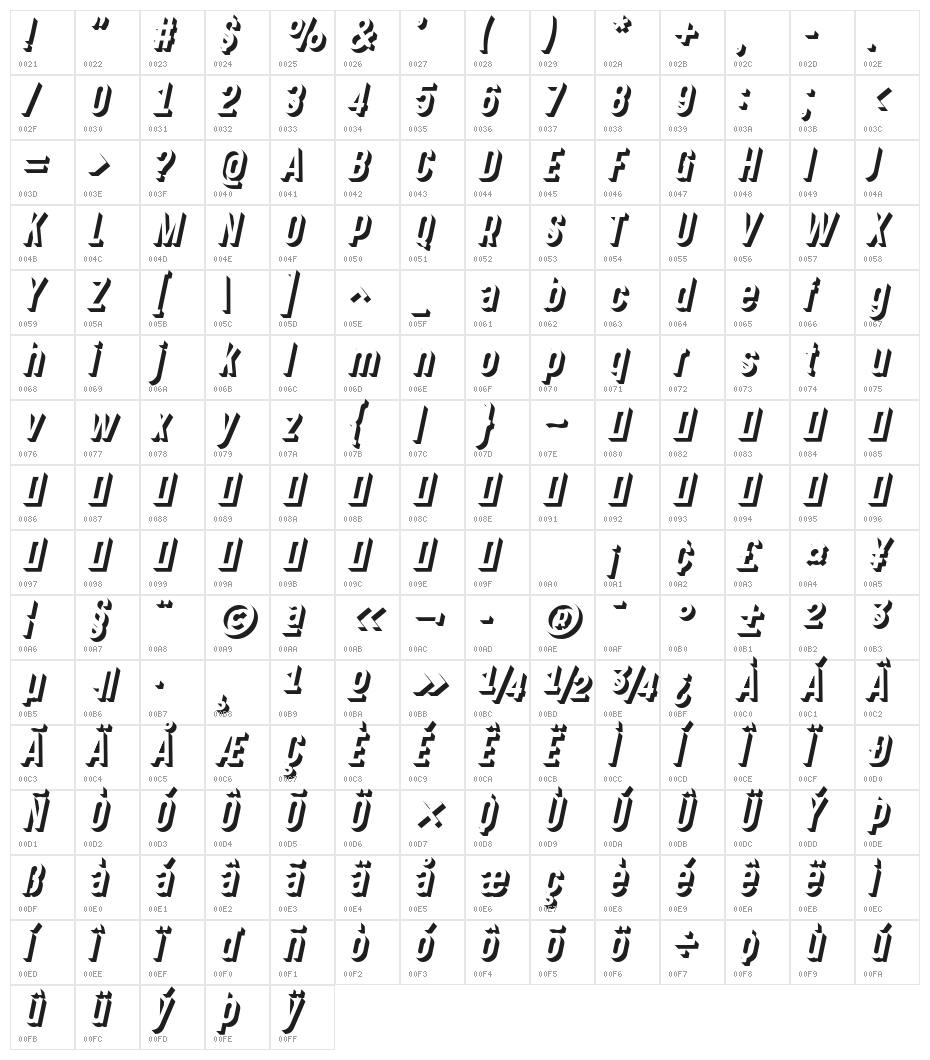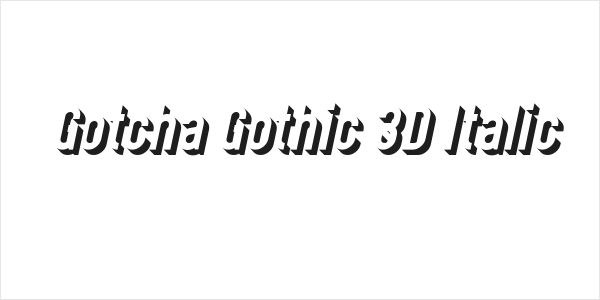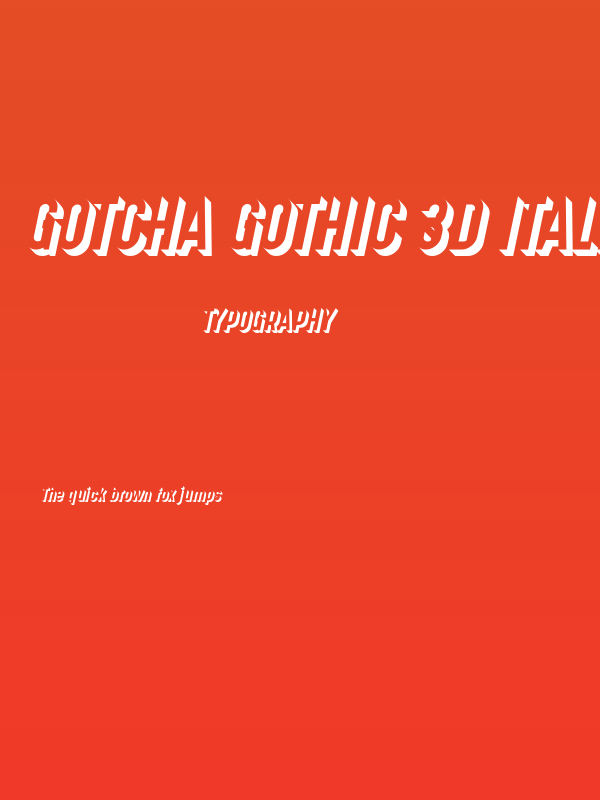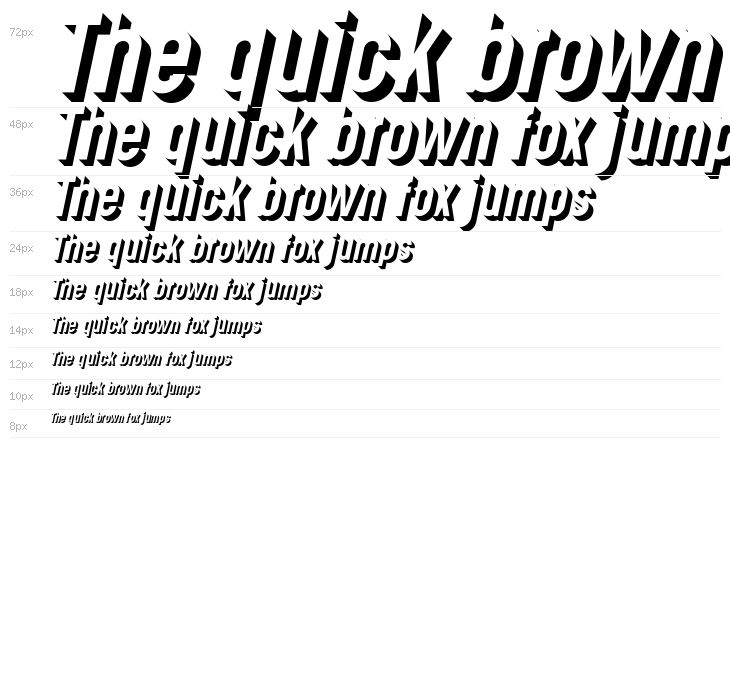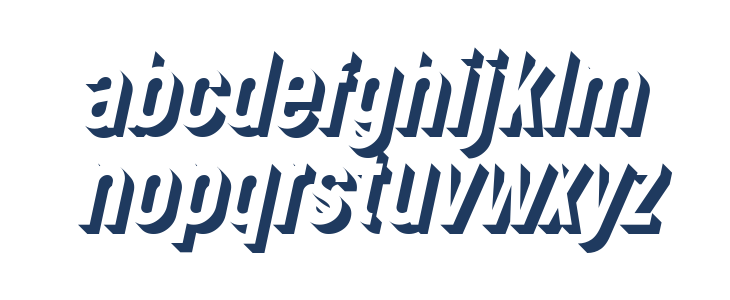
Gotcha Gothic 3D Italic Font
Gotcha Gothic 3D Italic Description
This font features a bold, three-dimensional design with a strong italic slant, giving it a dynamic and impactful appearance. The characters are robust and thick, with a shadow effect that enhances the 3D illusion. The uppercase and lowercase letters maintain a consistent style, with sharp angles and clean lines. The numerals and special characters follow the same bold and italicized design, ensuring uniformity across all glyphs. This font is ideal for making a statement, with its eye-catching and modern aesthetic.
| Proposed Projects | Ideal for posters, headlines, branding, and any project requiring a bold, attention-grabbing typeface. |